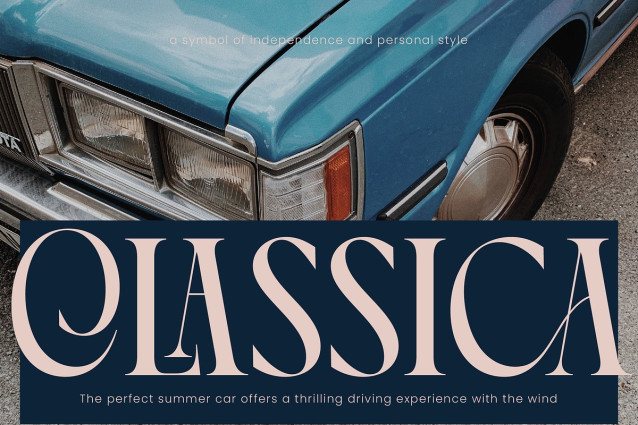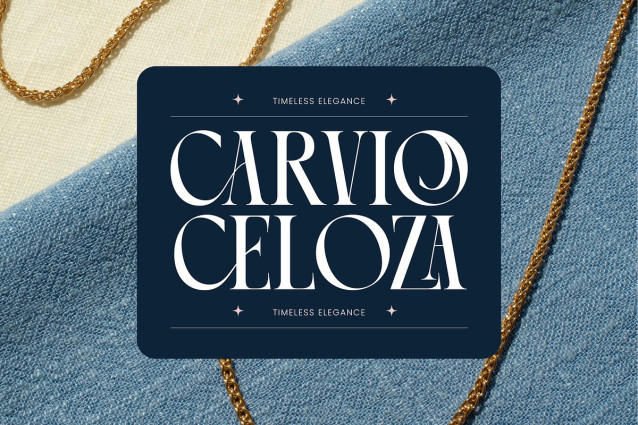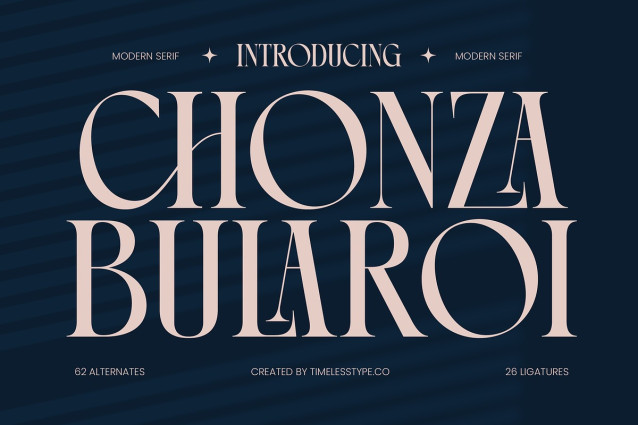
Chonza Bularoi Font
Chonza Bularoi Font from Timelesstype.Co , Suitable for any projects such as: logos, branding projects, homeware designs, product packaging, mugs, quotes, posters, shopping bags, t-shirts, book covers, name card, invitation cards, greeting cards, label, photography, watermark, special events, and all your other luxury and beautiful projects that need a Luxury Serif taste.